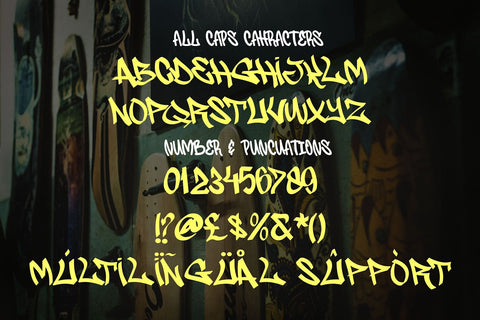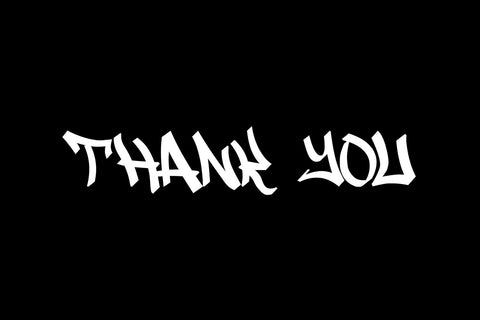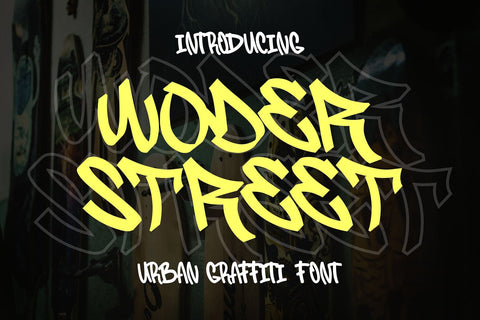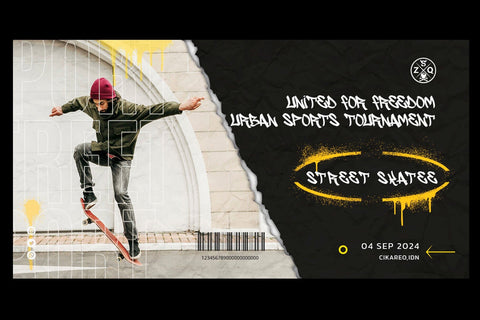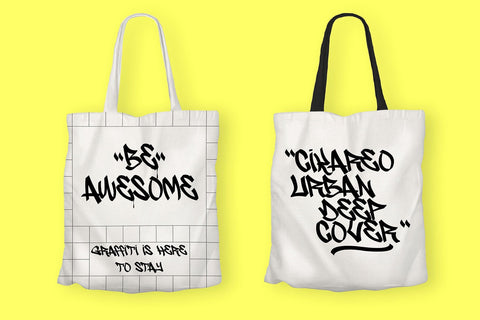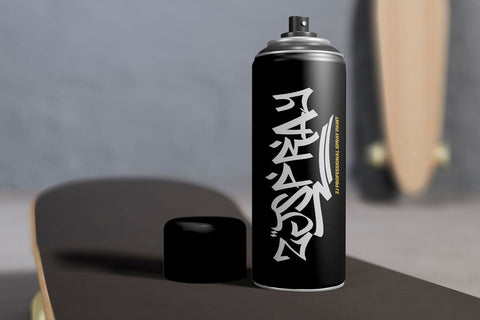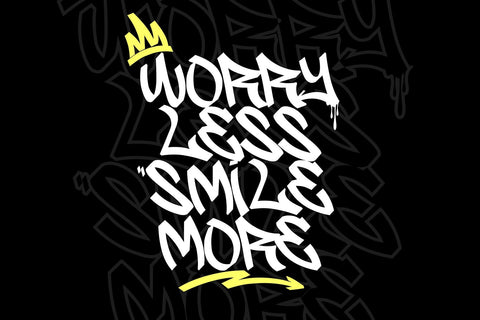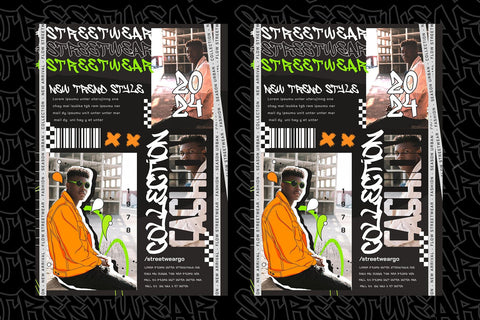
Woder Street - Monoline Graffiti Font
"Woder Street" is a captivating natural monoline graffiti font that embodies the essence of urban expression. With its monoline style and organic feel, this font exudes an authentic street art vibe. Each character is crafted with care, showcasing the fluidity and raw energy of hand-drawn graffiti. Perfect for projects seeking to capture the dynamic spirit of the streets, "Woder Street" adds an edgy yet chic touch to posters, branding, apparel, and more. Whether used for urban-inspired designs or to add a touch of grit to any project, this font brings an unmistakable urban flair to the forefront.
- Graffiti Characters looks